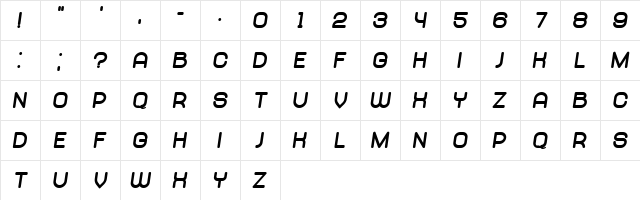
Abandoned Black Italic
Design Context for Abandoned Typeface
Abandoned offers clean, dependable letterforms without strong stylistic allegiance, making it a practical choice for designers who need flexibility. The slanted form adds forward momentum and visual energy.
Pro Tip: Try Abandoned for annotation and caption copy alongside an upright companion — the contrast in angle creates a dynamic but ordered typographic system.